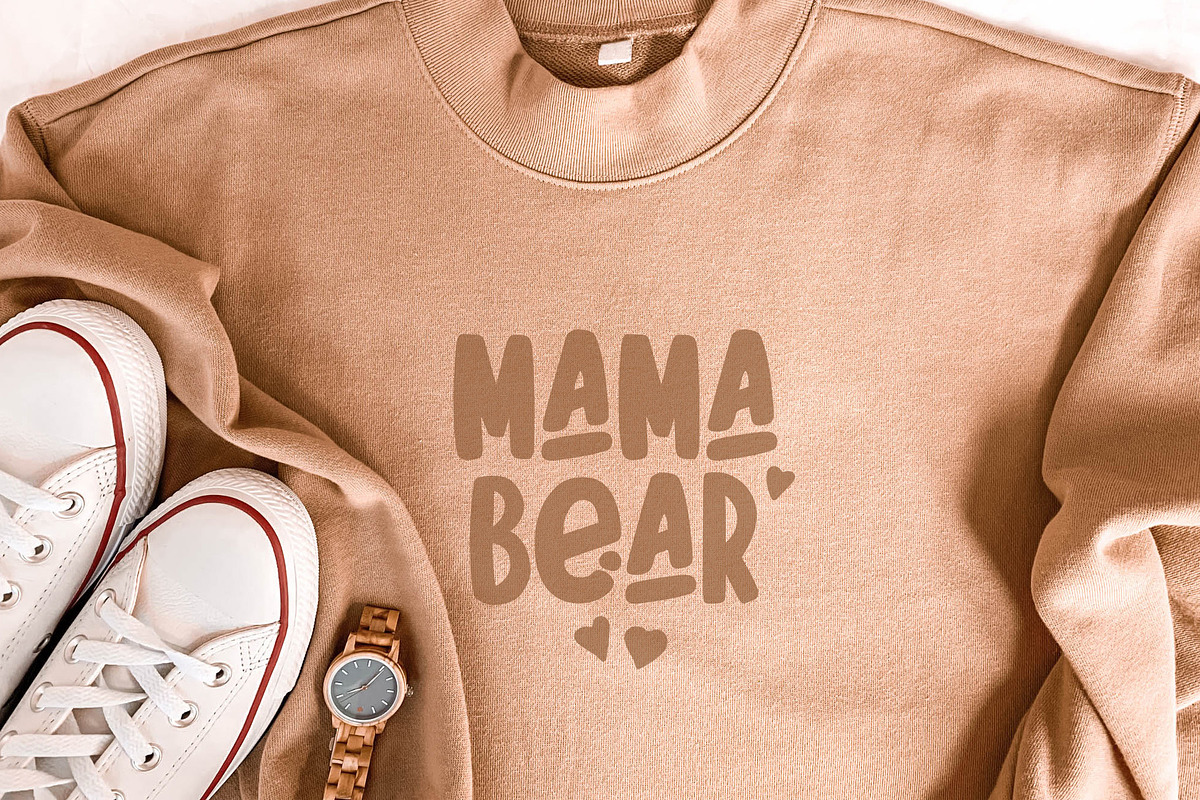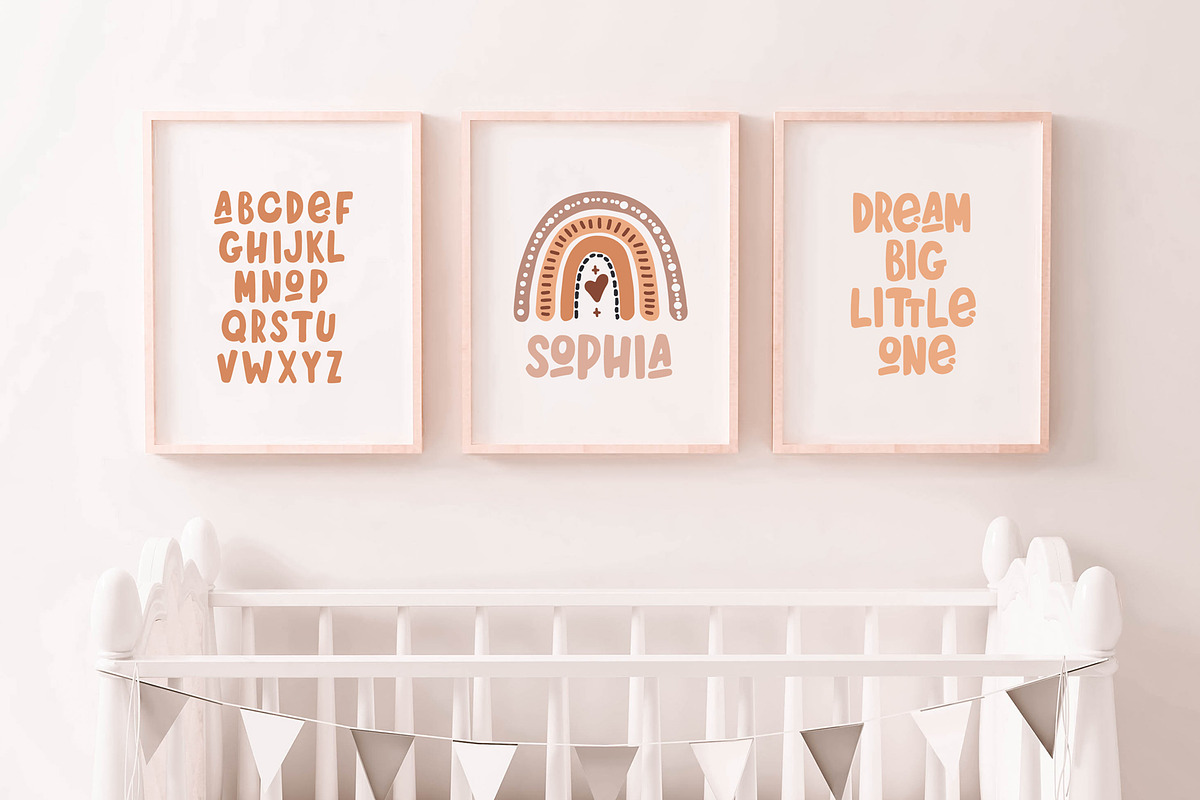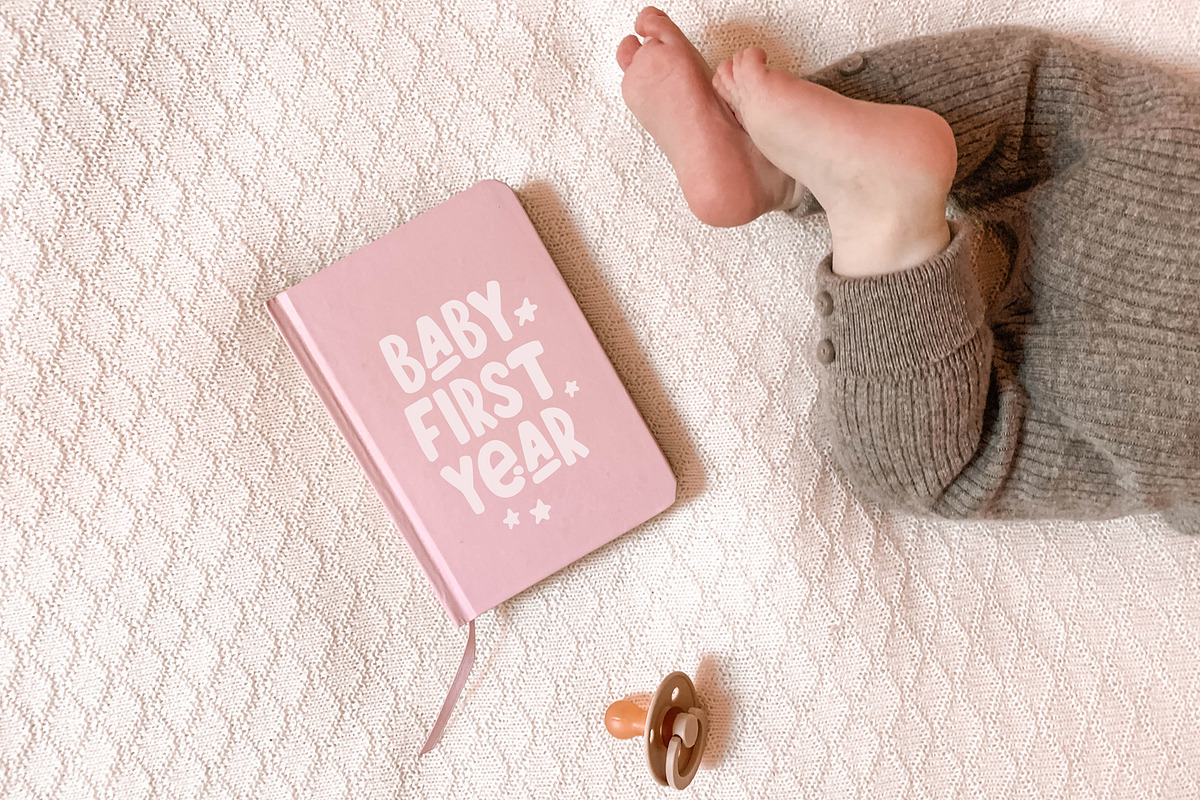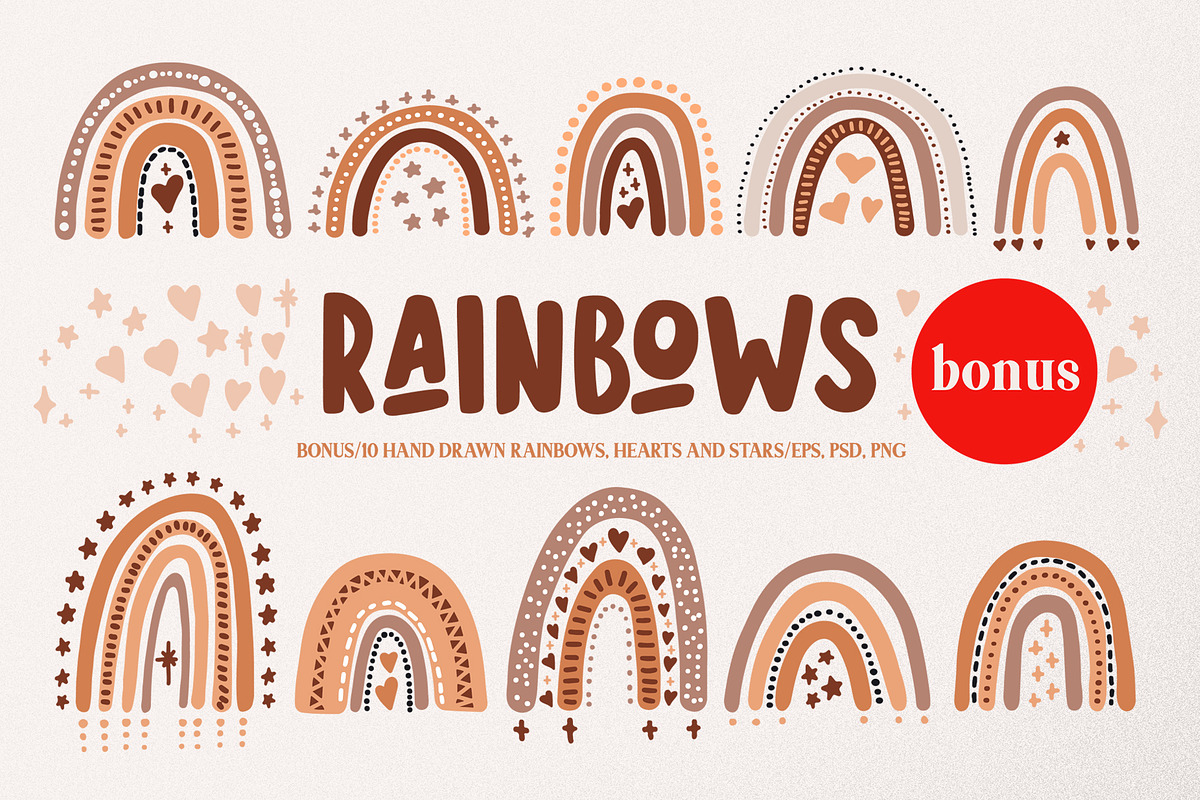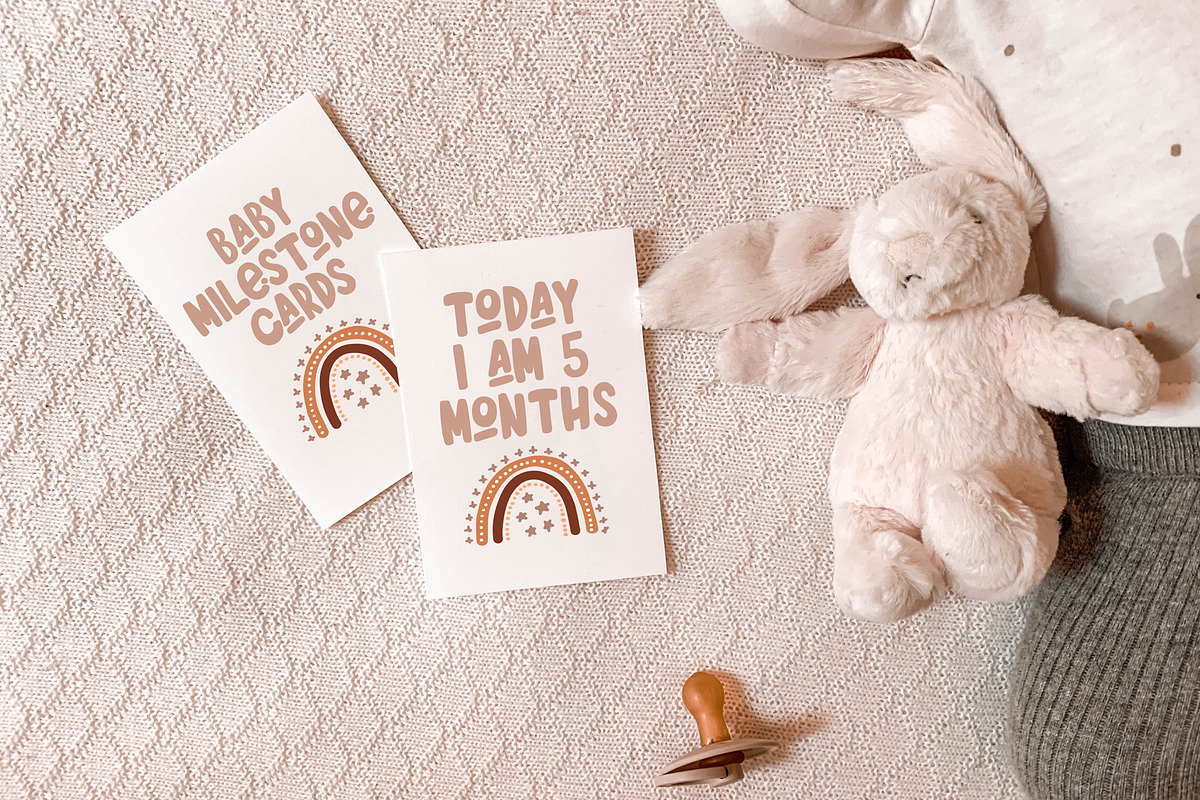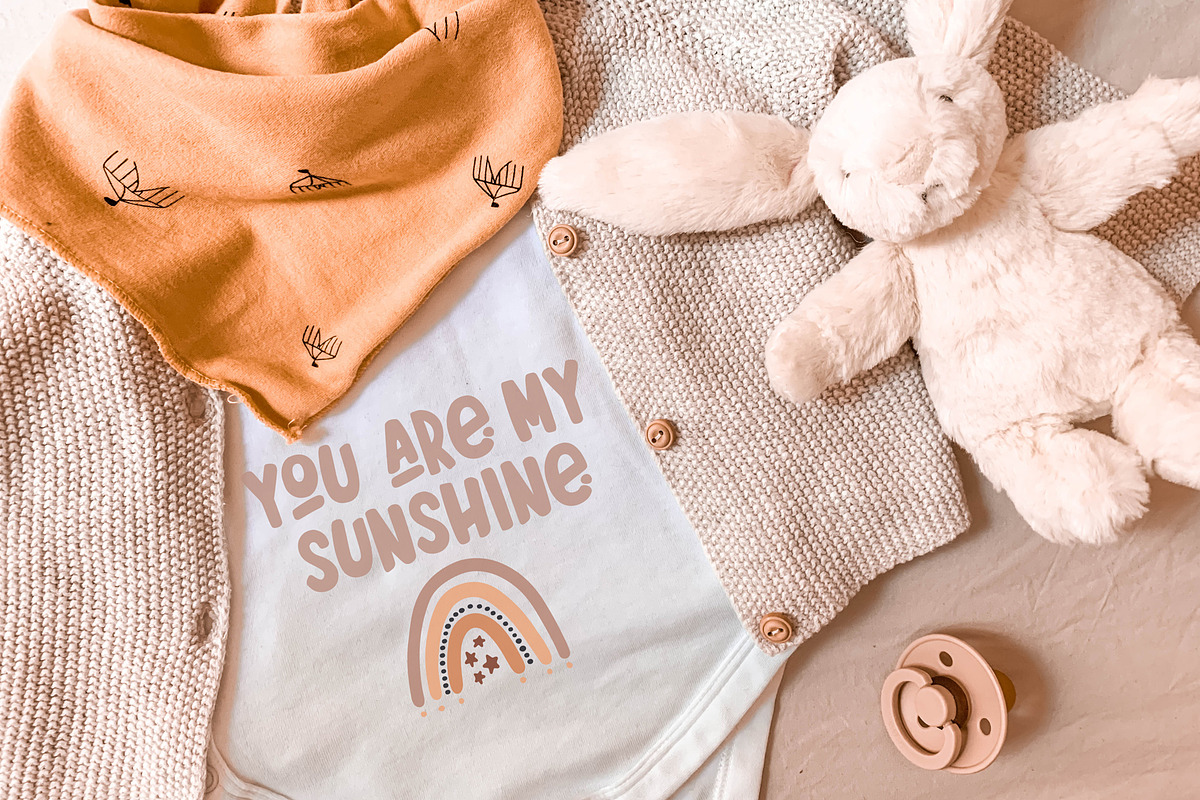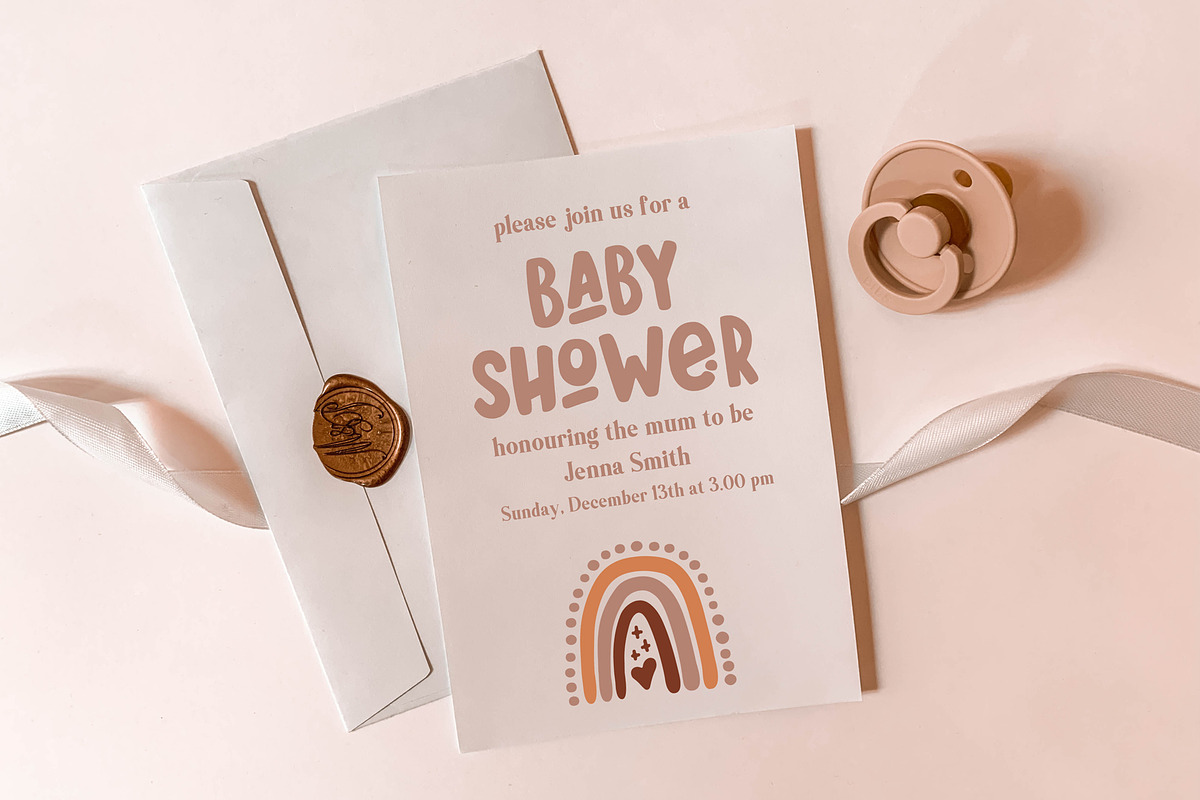
Cutie Dinosaur Font + Free Bonus
Cutie Dinosaur a Lovely Handwritten Font
Upper and lowercase letters
Cutie Dinosaur Font + Free Bonus by BarcelonaShop fits naturally into Branding, posters, packaging, typography.